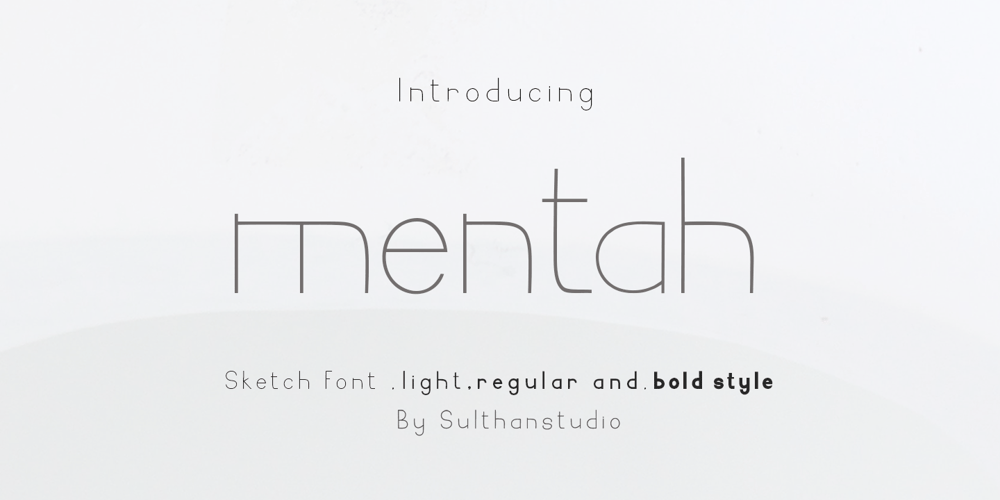
Mentah 1 Font Family was designed by Nasrullah and published by Sulthan Studio. Mentah 1 contains 4 styles and family package options. This sketch font Sans serif was born from the lines in the font that we created for the (Rajin) font and we redeveloped it into a different style with a more minimalist and more powerful setting and looks stunning for any smooth and bold writing that can be used anywhere in your workThis font has complete uppercase and lowercase letters with 4 thicknesses, numbers, punctuation, and also language support